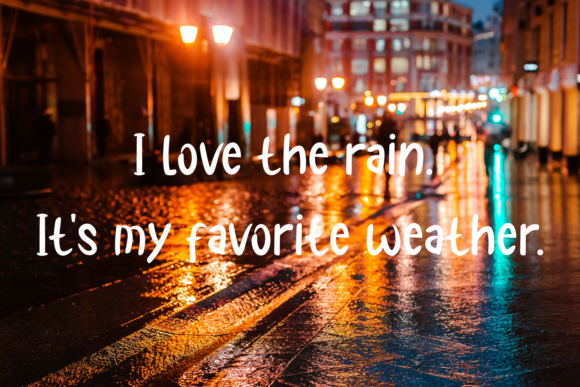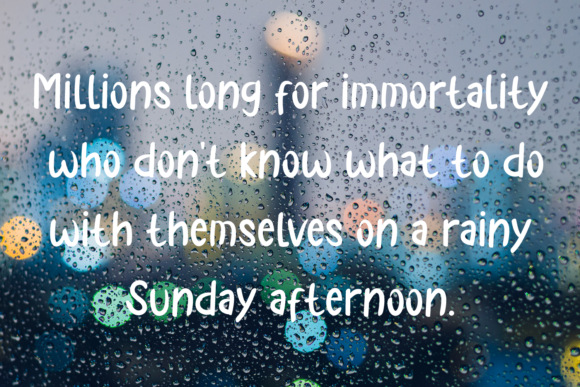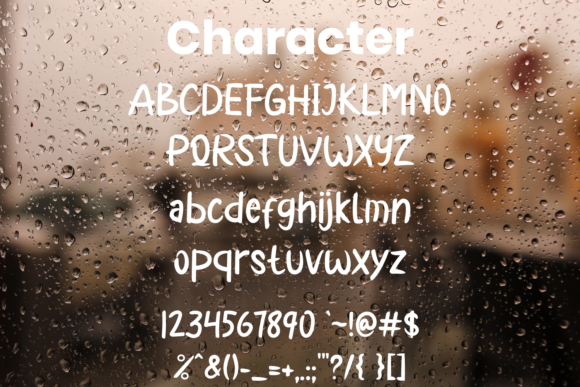
Introduction to Rainy Forever Font
Rainy Forever is a unique display font that is readable, natural and casual.
Why Choose Rainy Forever Font?
Rainy Forever Font offers exceptional quality and versatility, making it a valuable addition to your design toolkit. Whether you’re creating for personal projects or commercial use, Rainy Forever Font delivers professional results.